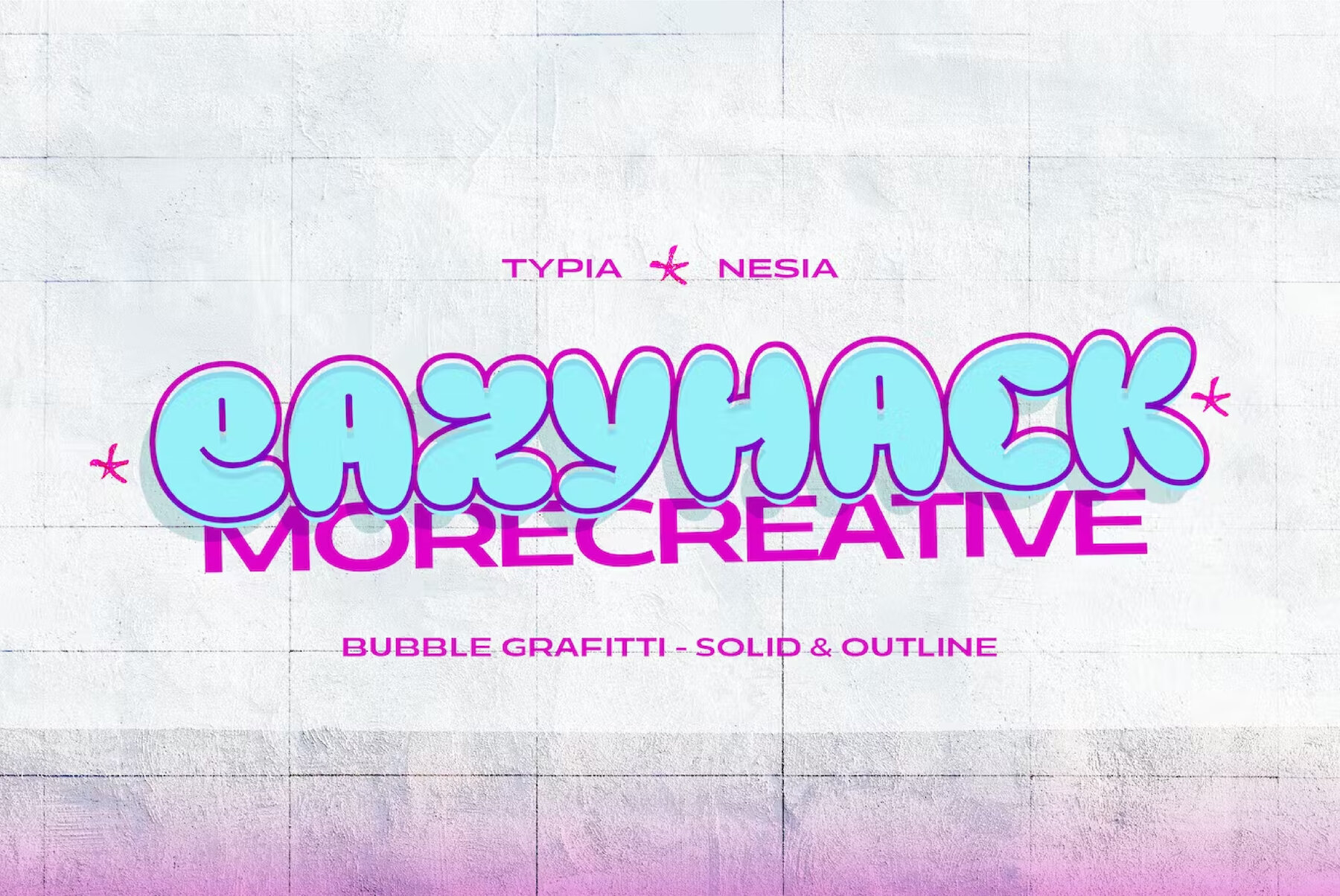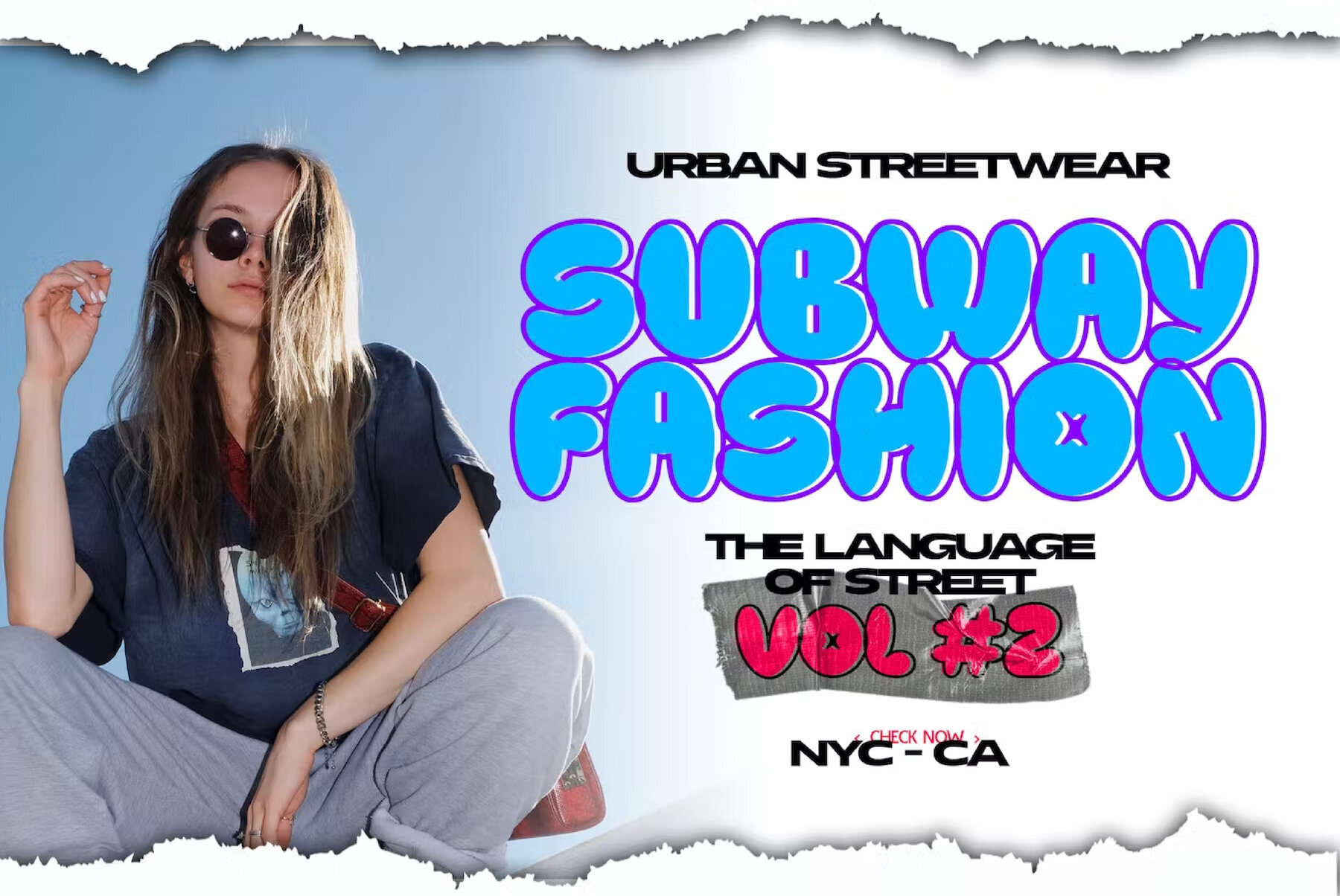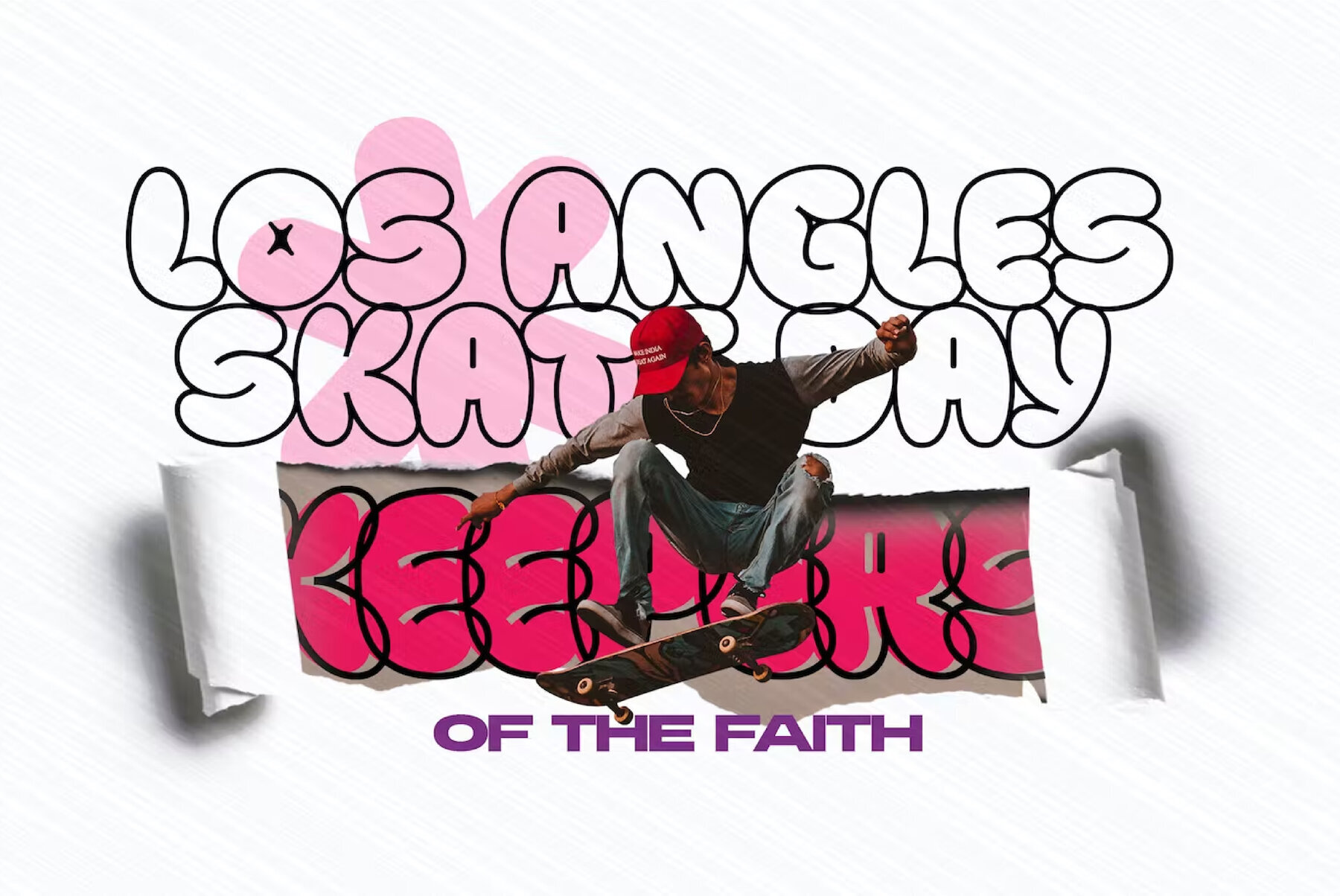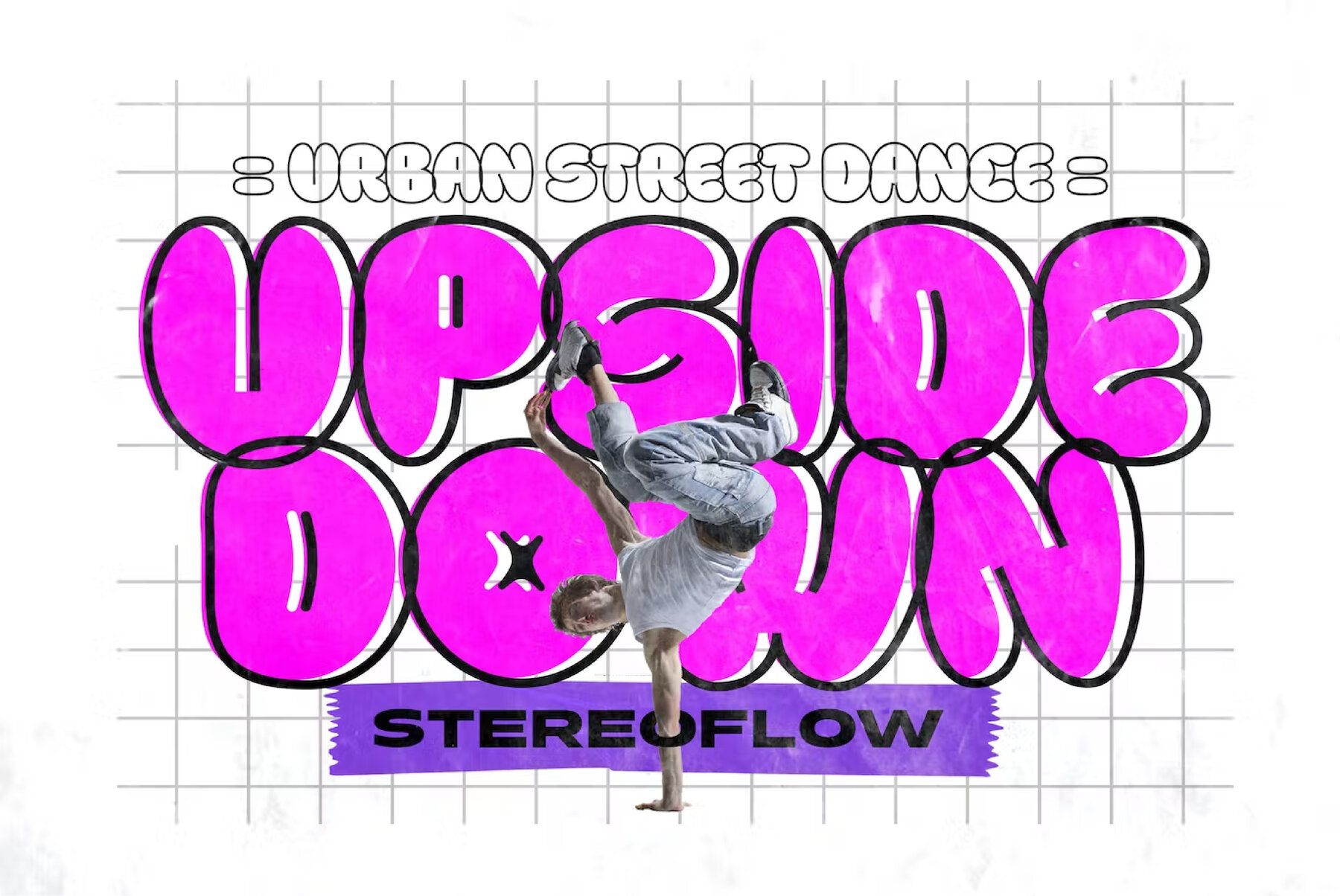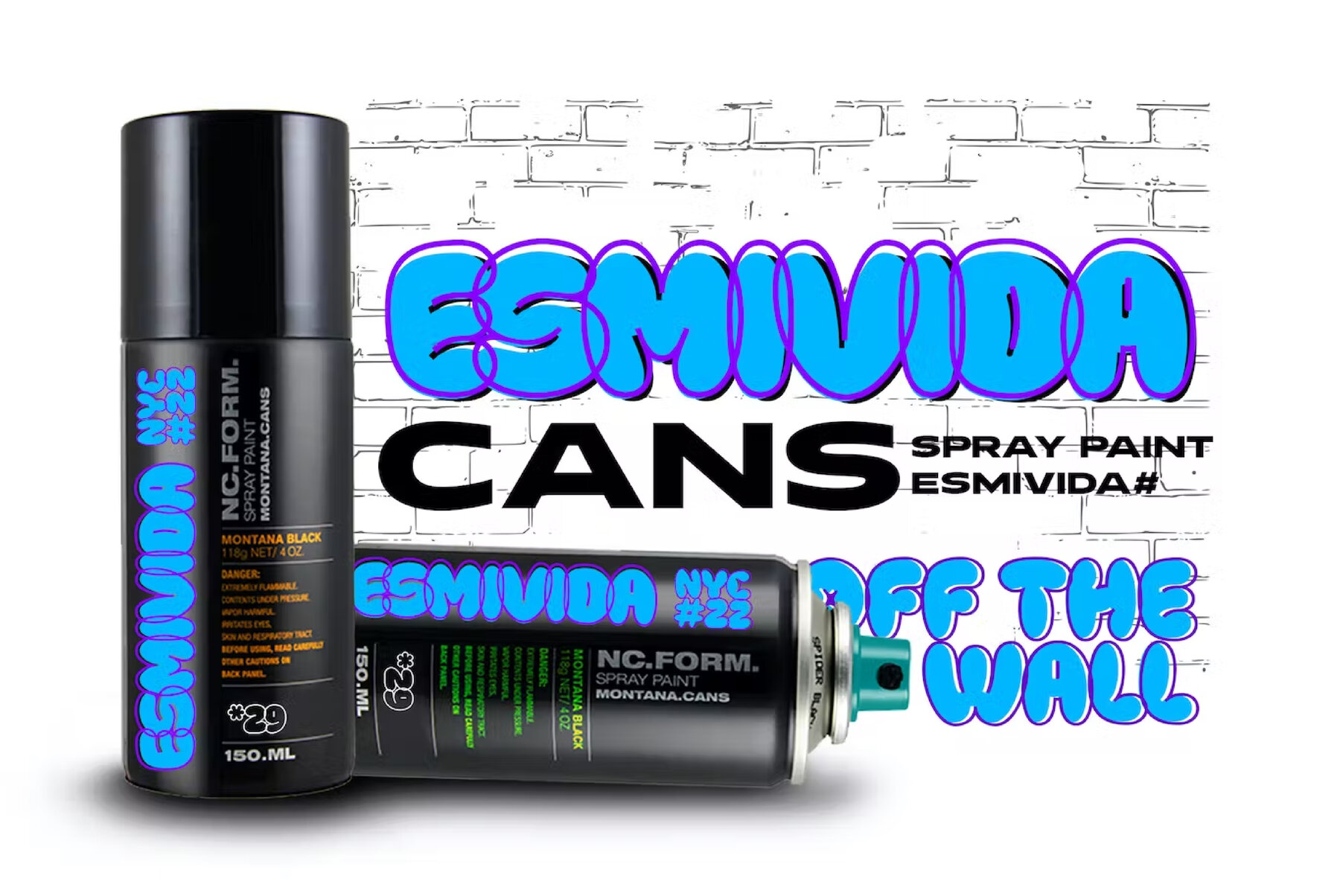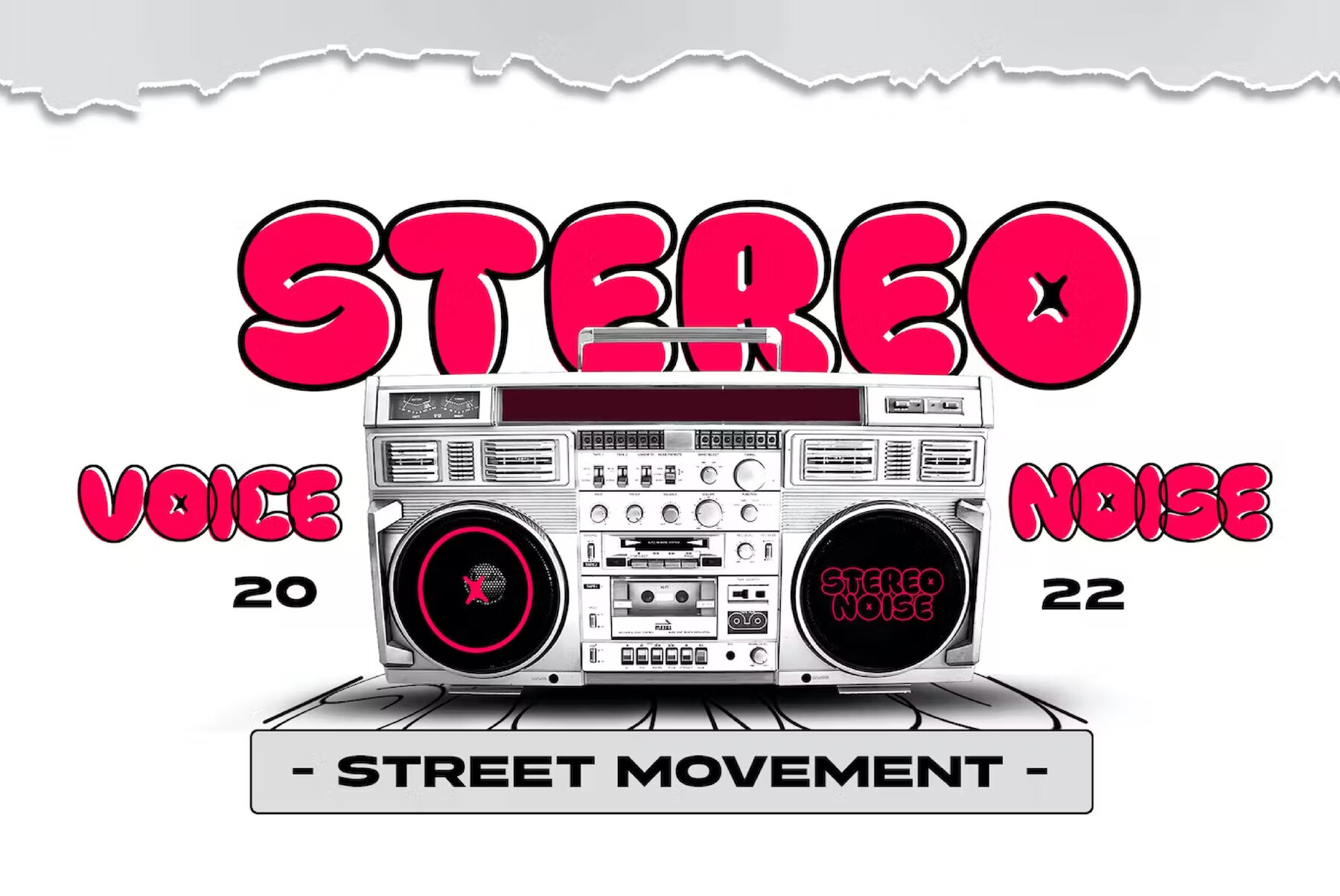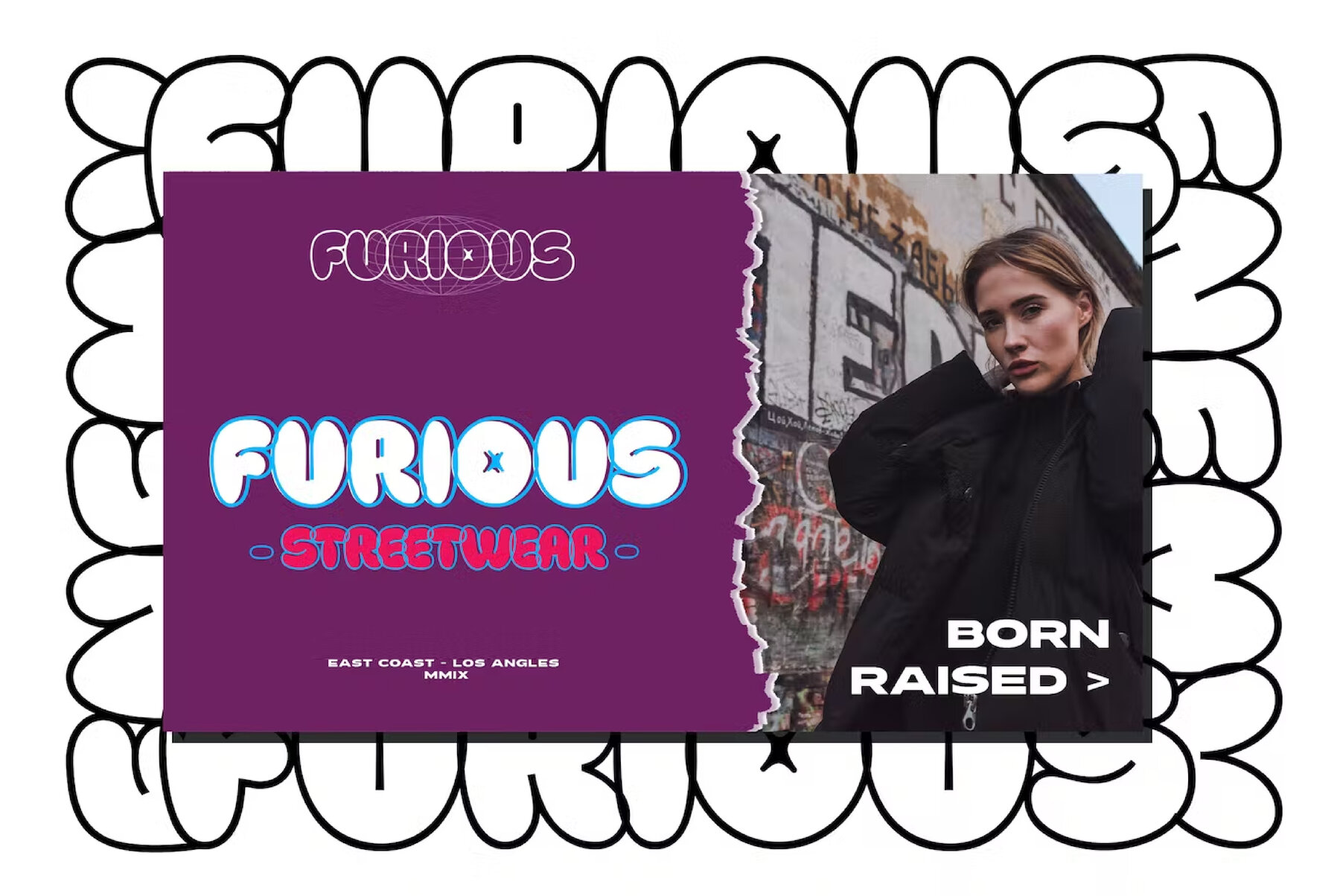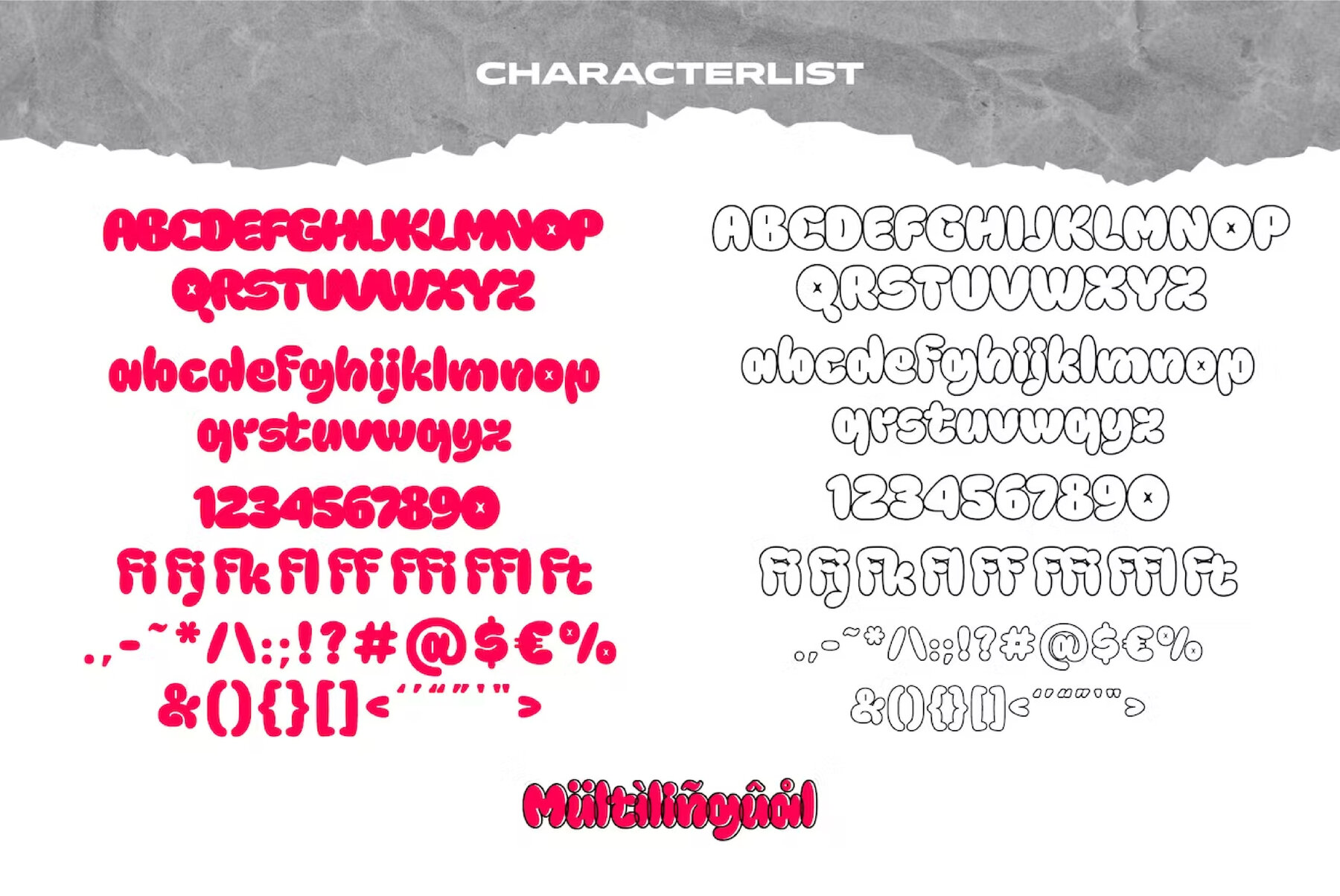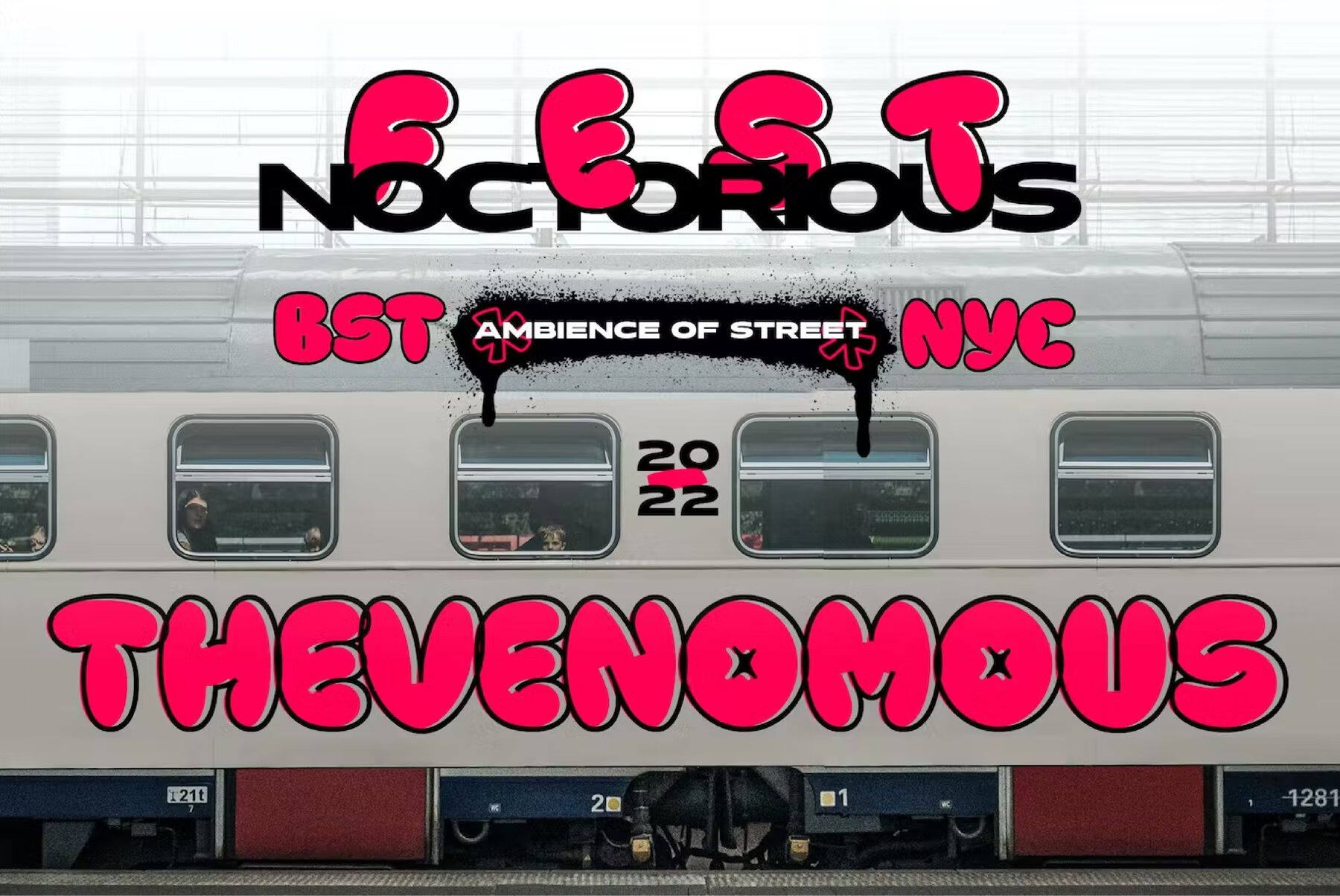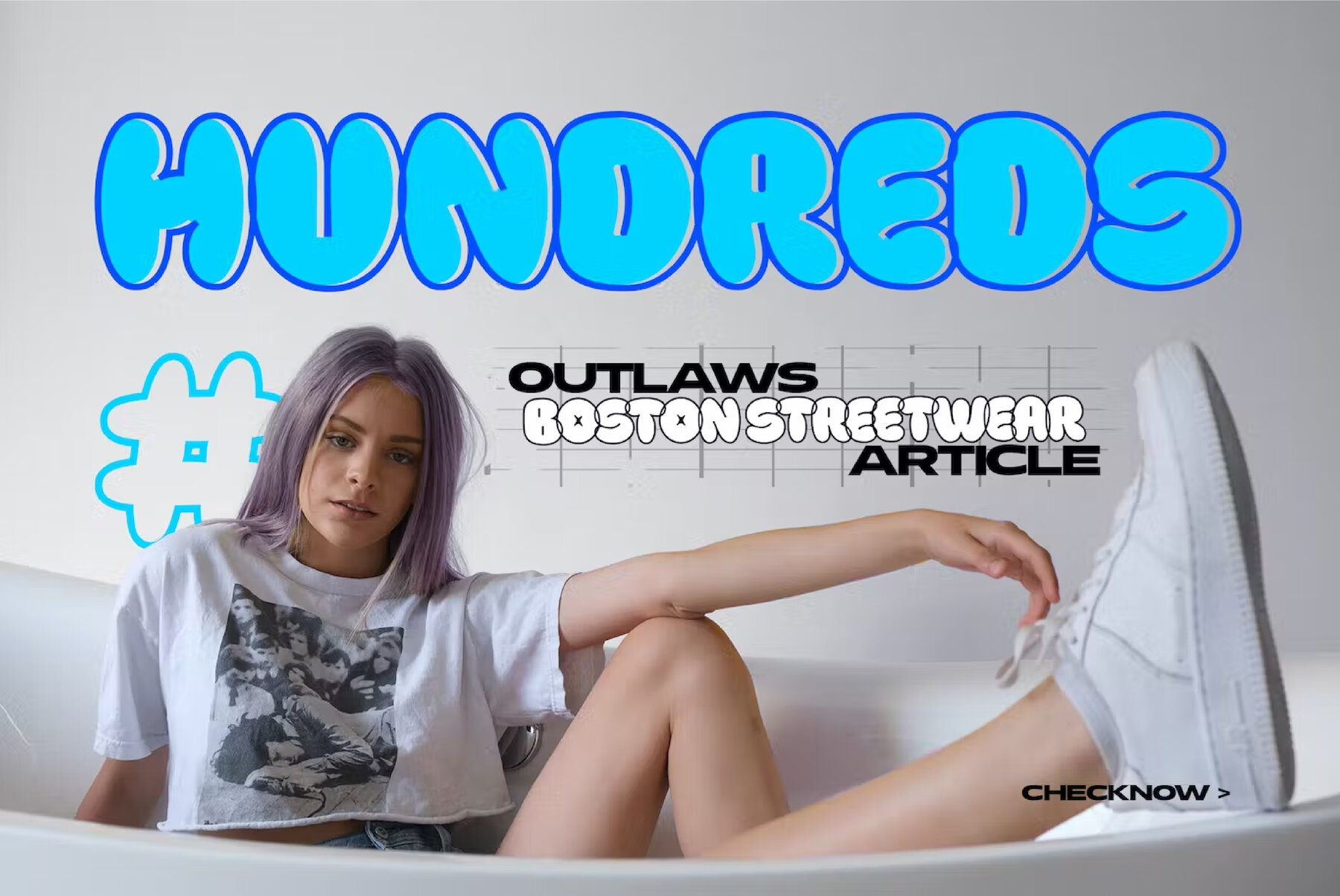
Eazyhack Font
Eazyhack Regular
Eazyhack Outline
Embrace the bold and playful design of the Eazyhack font, perfect for projects requiring a modern urban flair. Suitable for a range of applications, this distinctive bubble graffiti font captures the essence of street culture while adding a fun and dynamic element to your creations.Eazyhack: Urban Bubble Graffiti Font
Let Eazyhack Font bring an urban edge and vibrant touch to your work, ensuring each piece is as unique as it is engaging.